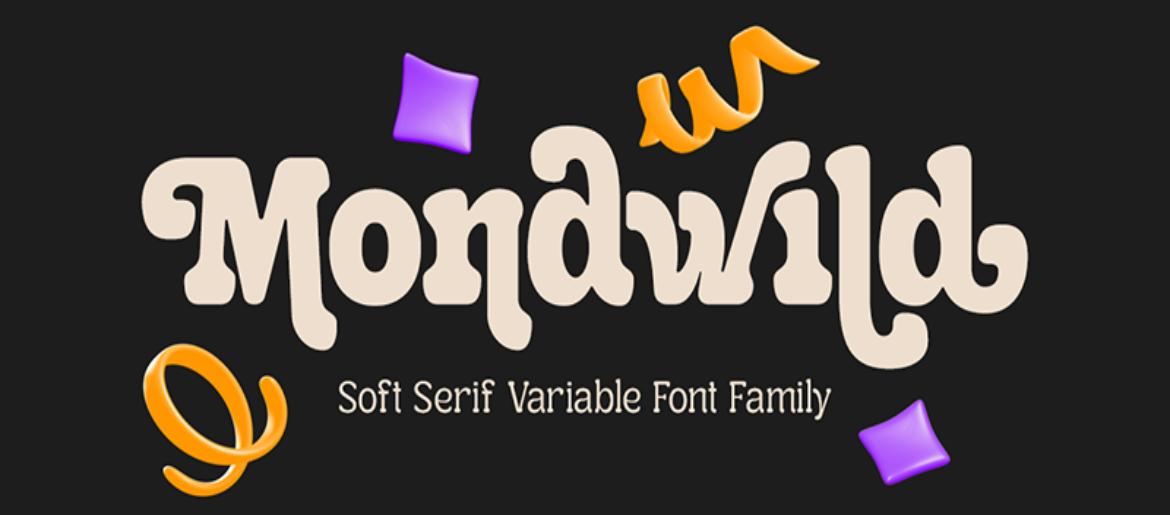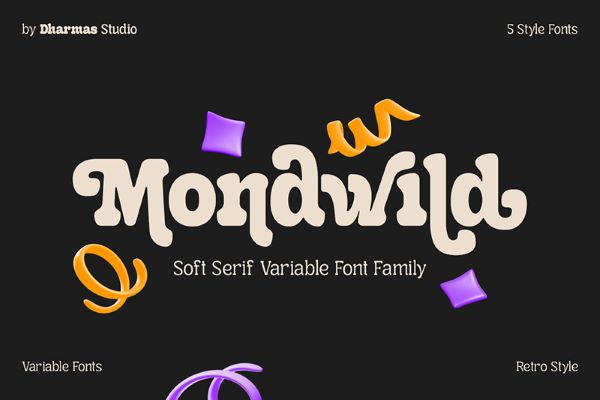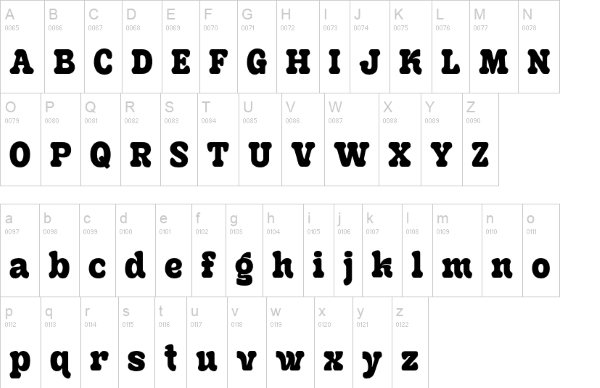
Mondwild Font
Mondwild Font is a distinctive typeface that blends retro charm with modern sensibilities, creating a versatile style that balances nostalgia and contemporary flair. Inspired by expressive designs of past eras and refined with a clean, modern touch, Mondwild brings warmth and energy to any project. Its rounded yet polished letterforms create a playful rhythm, making it well suited for branding, posters, packaging, and creative digital designs.